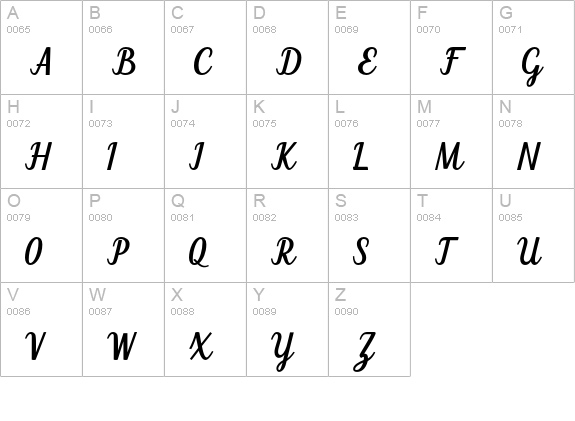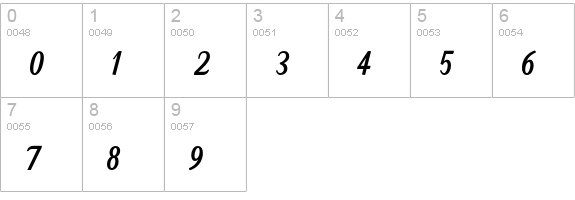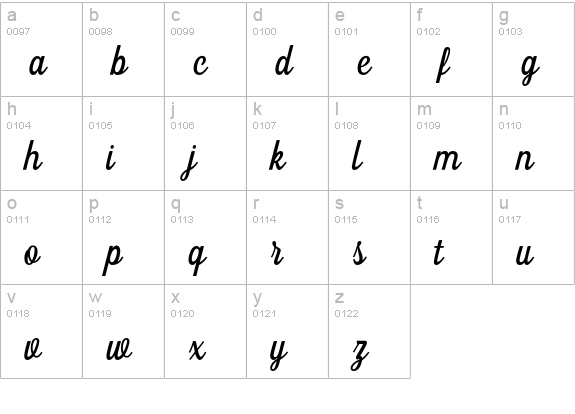
Claudia Font Details
Claudia font is a visually appealing typeface that exudes elegance and sophistication. With its sleek lines and graceful curves, Claudia font adds a touch of refinement to any design project. Whether you are creating invitations, posters, or branding materials, this versatile font is sure to make a lasting impression. The best part? Claudia font is completely free to download at FontsMarket.com. Now you can elevate your designs without breaking the bank. Don't miss out on this incredible opportunity to enhance your creative projects with the timeless beauty of Claudia font. Download it today and let your creativity soar!